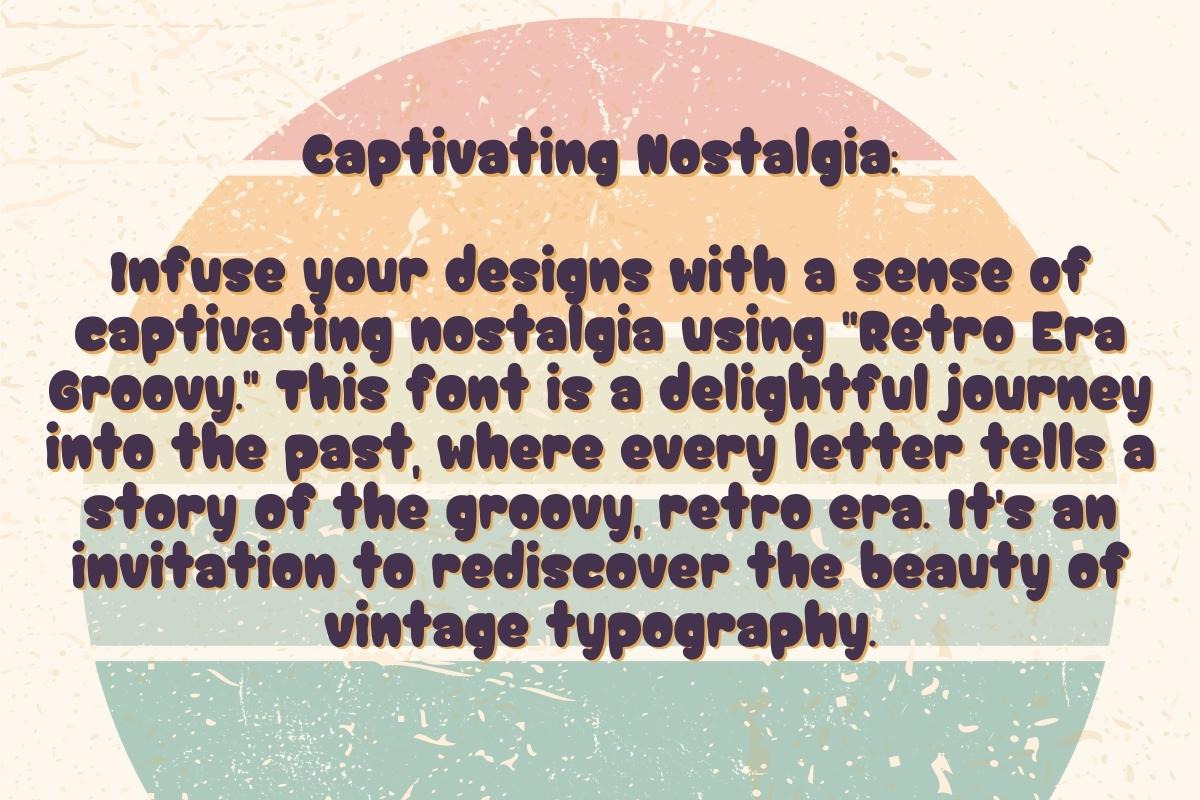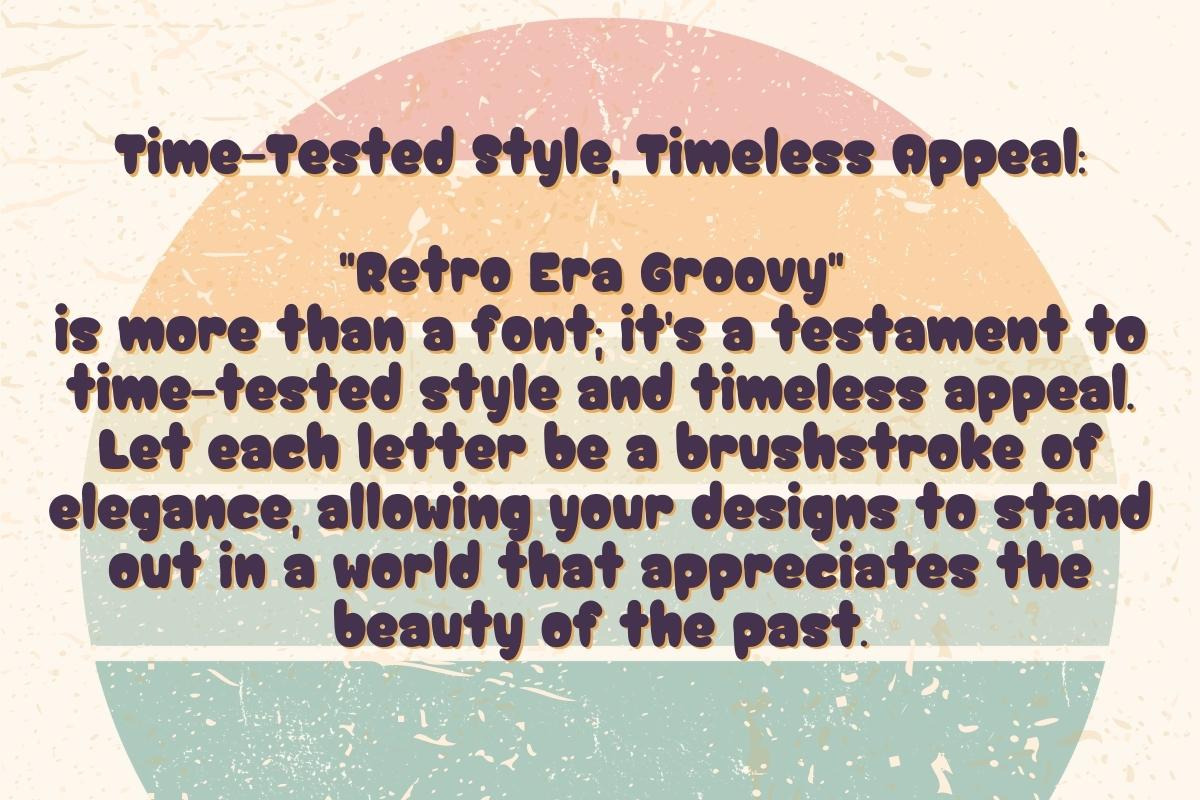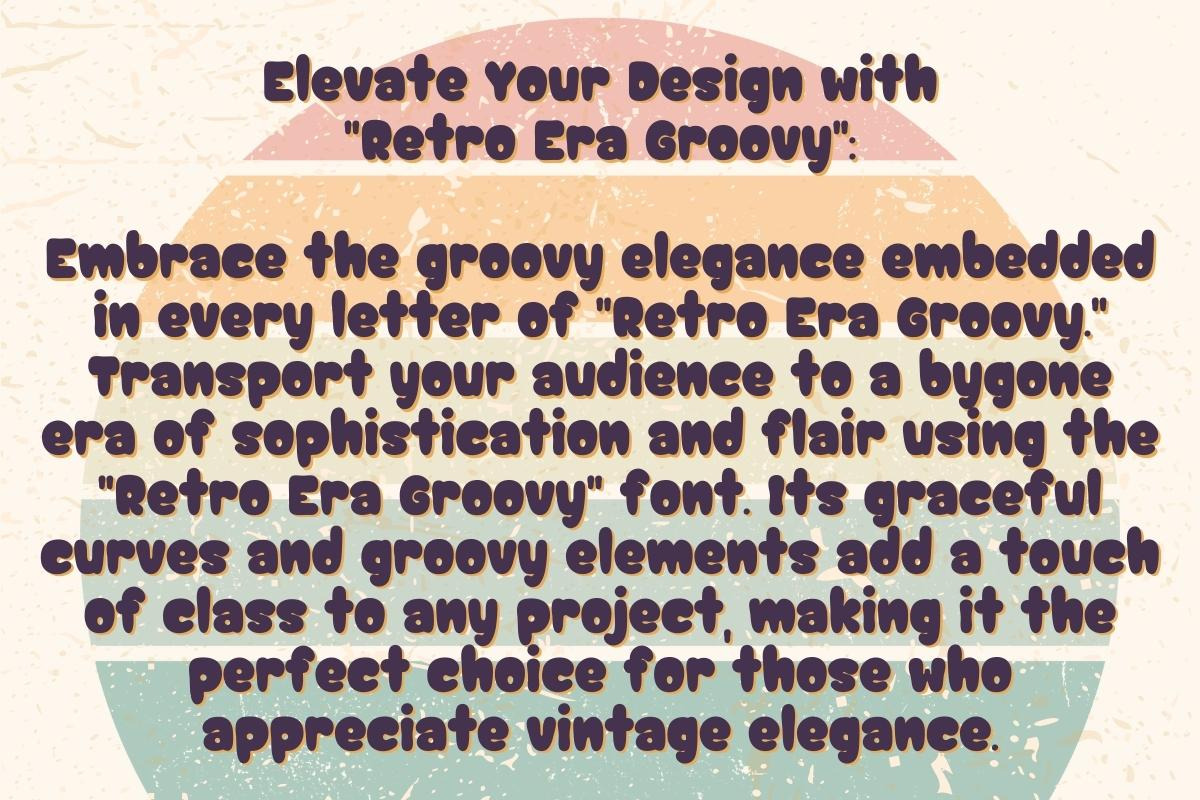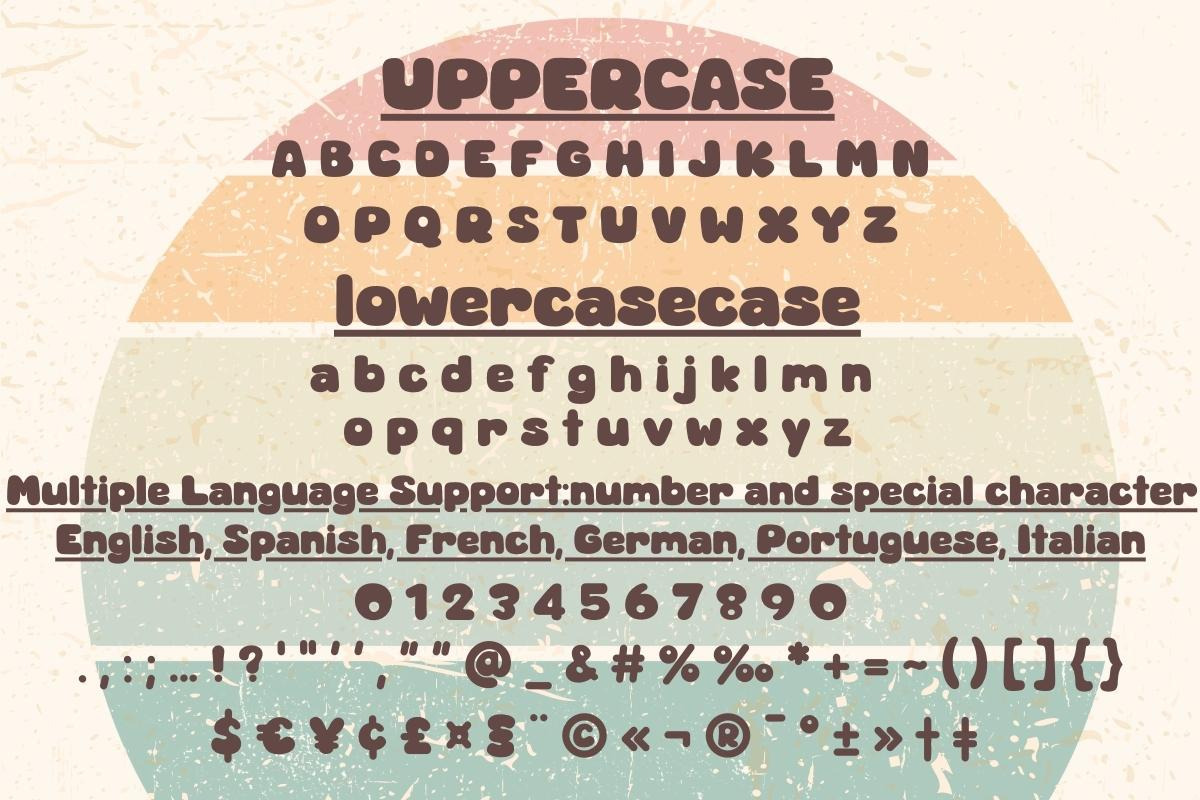
Retro Era Groovy
Rediscover Elegance with "Retro Era Groovy": Immerse your designs in the timeless allure of the past with our font, "Retro Era Groovy." This typeface beautifully combines the charm of retro aesthetics with a modern twist, creating a visual experience that is both nostalgic and stylish.